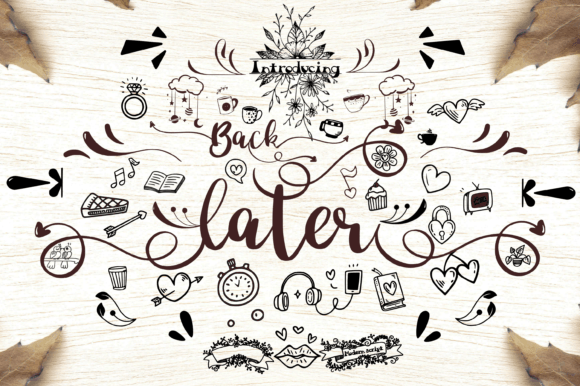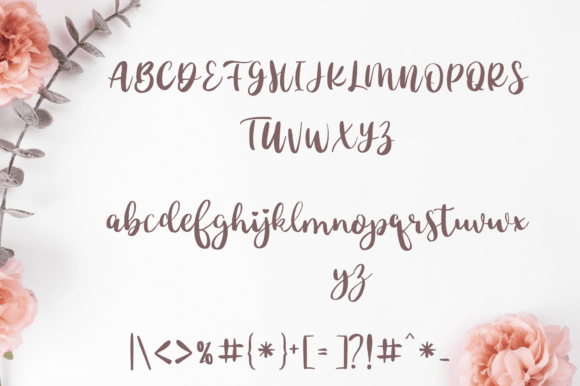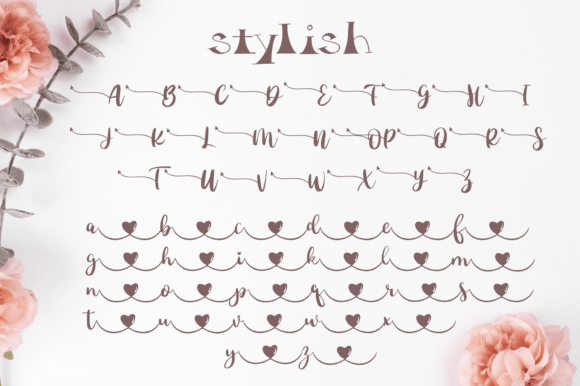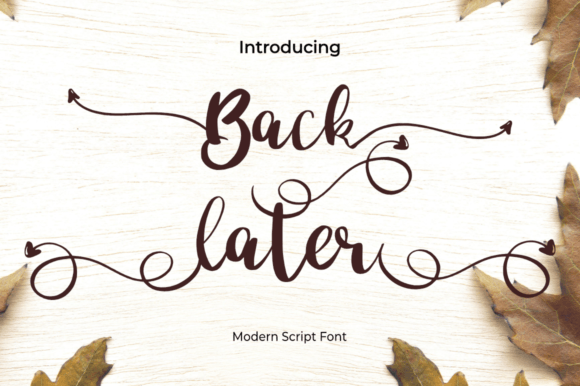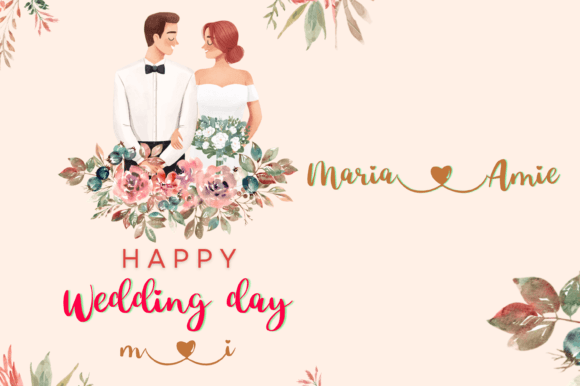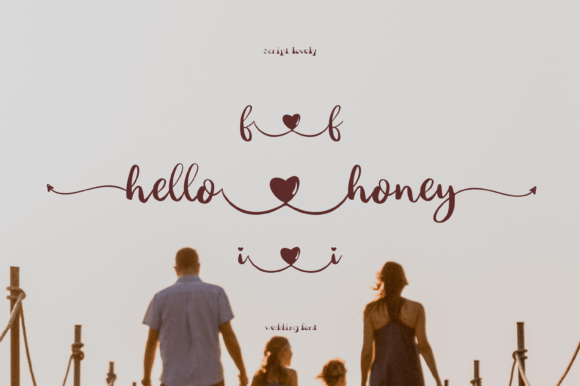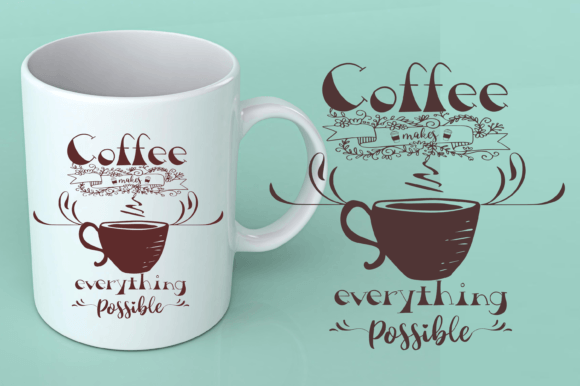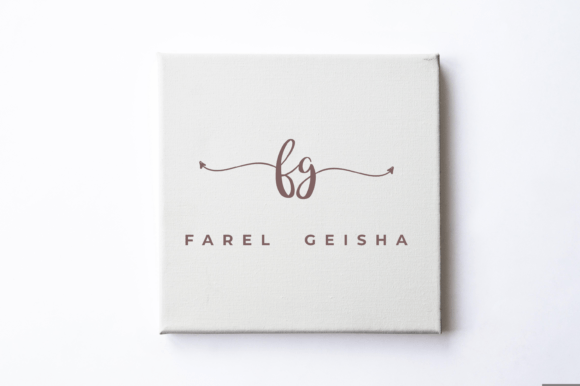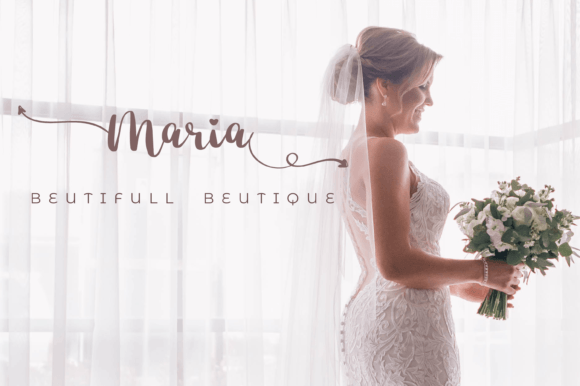
Back Later Font
About Back Later Font
Back Later is a dynamic hand brush script and serif duo font, meticulously crafted with brush and ink to bring a distinctive and bold aesthetic to your designs. This versatile typeface is well-suited for a range of applications, making it ideal for use in bold watercolor designs or handwritten styles such as blog titles, posters, wedding elements, t-shirts, clothing, book covers, business cards, greeting cards, branding, cafe/restaurant signs, merchandise, and more.
The combination of hand brush script and serif elements in Back Later creates a harmonious duo that can adapt to various design needs. Whether you’re aiming for a bold and expressive watercolor style or a refined handwritten look, this font duo provides the flexibility to achieve a cohesive and visually striking result.
The brush script font injects energy and dynamism into your designs, making it perfect for eye-catching elements like blog titles, posters, and t-shirt designs. Meanwhile, the serif font adds a touch of sophistication and versatility, making it suitable for more formal applications such as book covers, business cards, and branding.
Back Later’s compatibility with watercolor designs allows for a seamless integration into projects that require a vibrant and artistic touch. The font duo can effortlessly convey a range of moods, making it adaptable for diverse design contexts.
In summary, Back Later is not just a font; it’s a versatile duo that combines the boldness of a hand brush script with the refinement of a serif font. Embrace its dynamic and expressive qualities for your creative projects, whether they involve bold watercolor designs, handwritten styles, or a combination of both. Let Back Later be the font duo that elevates your designs with its unique and captivating blend of brush and ink craftsmanship.